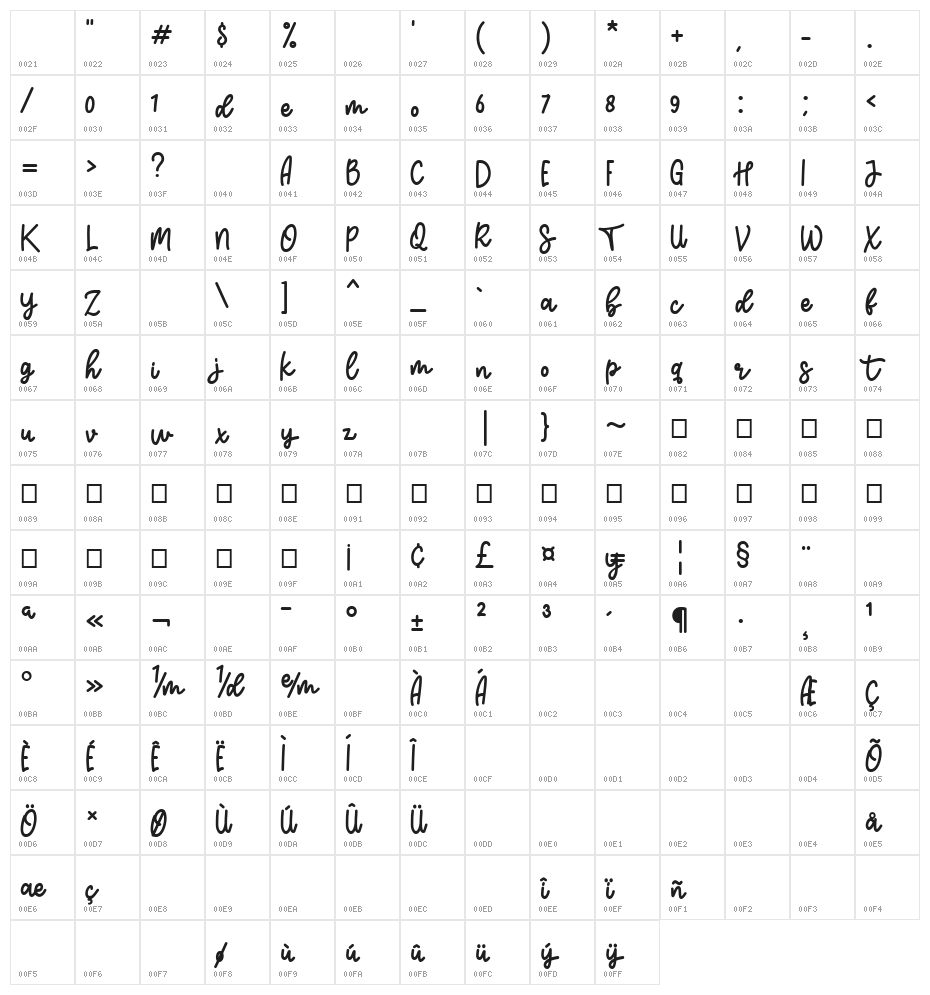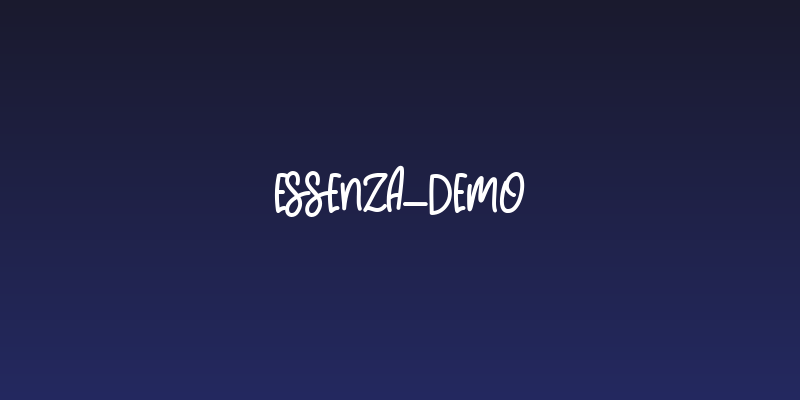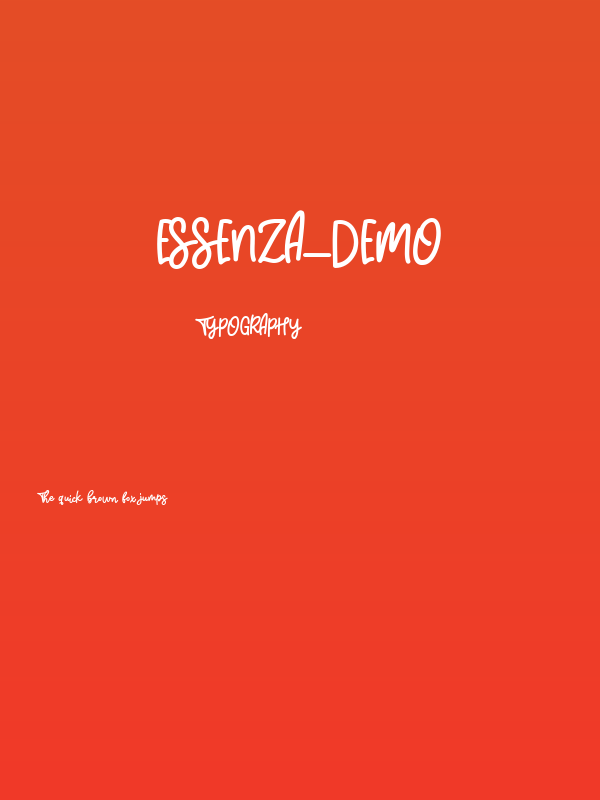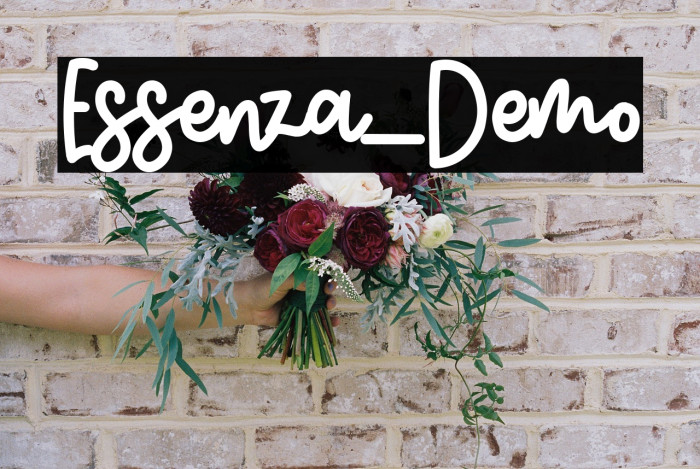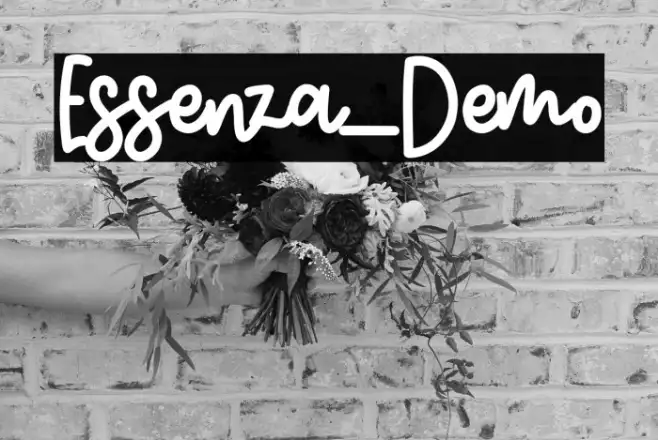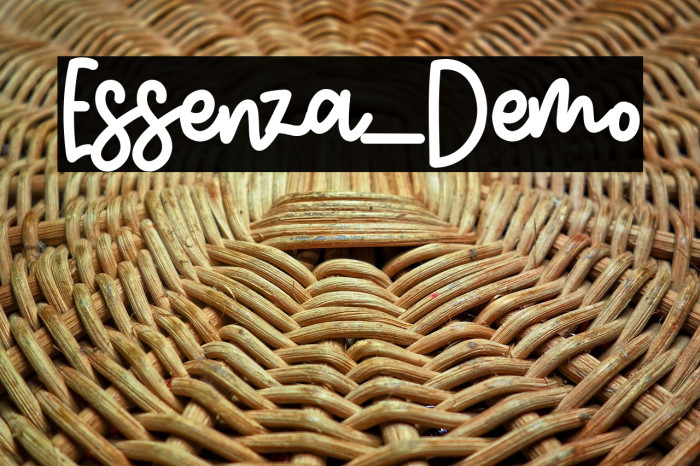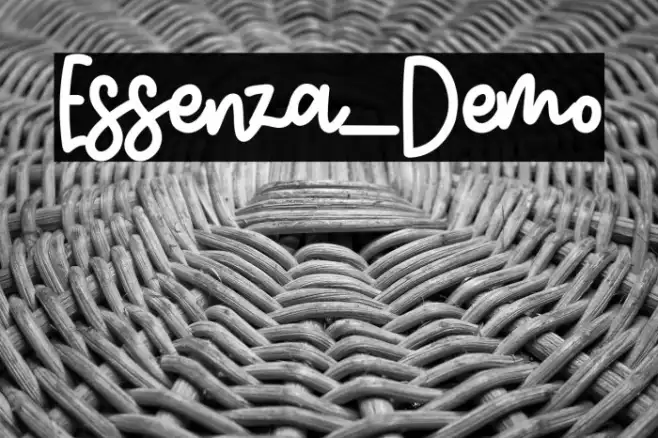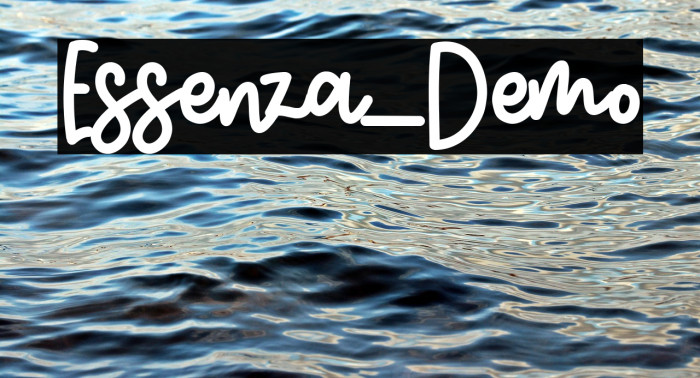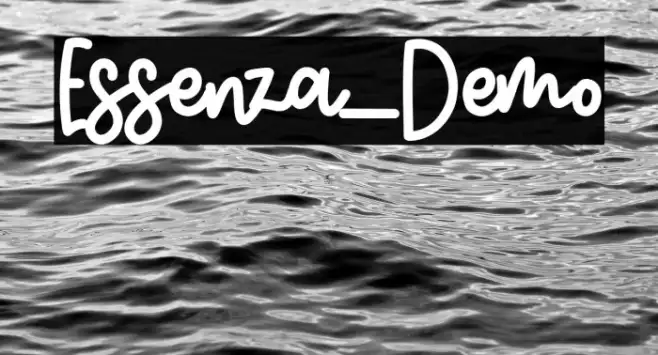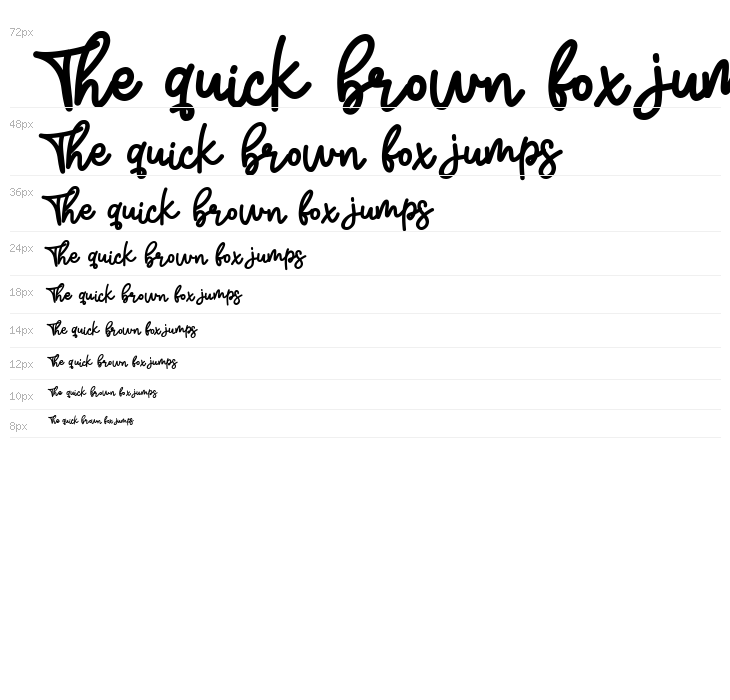
Essenza_Demo Font
Essenza_Demo Description
This font features a playful and energetic handwritten style, characterized by its bold and flowing letterforms. The uppercase letters are tall and slightly condensed, giving a sense of height and elegance, while the lowercase letters maintain a consistent rhythm with smooth curves and rounded edges. The numbers and special characters complement the alphabet with similar fluidity and charm. The overall appearance is casual yet stylish, making it suitable for projects that require a personal touch. The font's design is versatile, allowing it to be used in various contexts where a friendly and approachable aesthetic is desired.
| Use Case | Logos, Headlines, Social Media |
| Proposed Projects | Ideal for greeting cards, invitations, branding, social media graphics, and personal projects. |